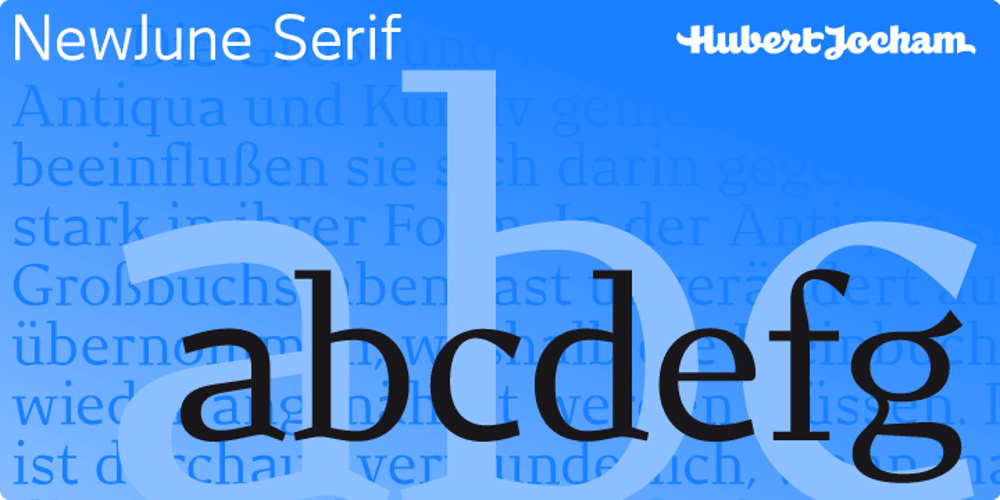
NewJune Serif
NewJune Serif Font Family was designed by published by Hubert Jocham Type. NewJune Serif contains 14 styles and family package options. NewJune is a very strong unique character. It is already used in many magazines all over the world. Like Harvey Nichols magazine in London and later W magazine in New York. NewJune Serif was actually the basis for NewJune Sans. And now NewJune Serif is available on MyFonts!